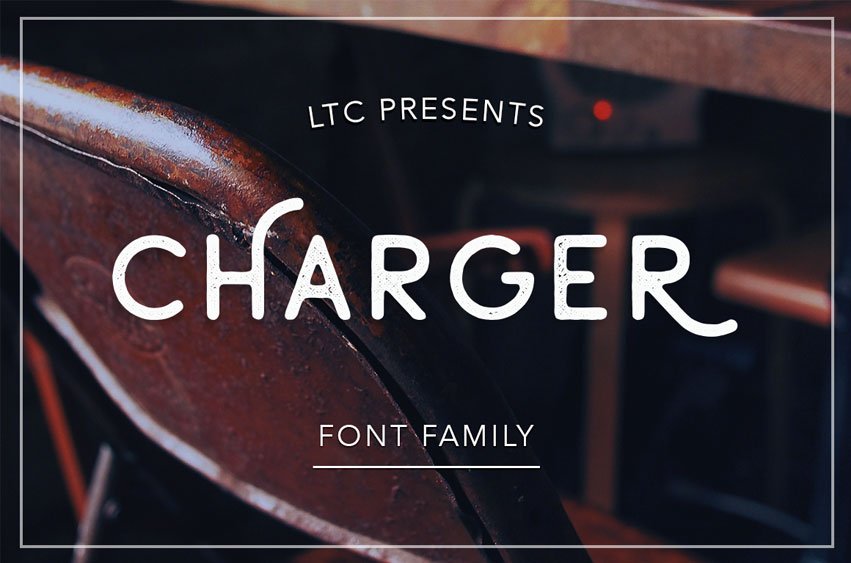
Charger Font
Charger Font is a decorative Sans Serif that works great for expressive designs.
This font is well-suited for a variety of contexts, such as print design, promotional materials, or magazine layouts.